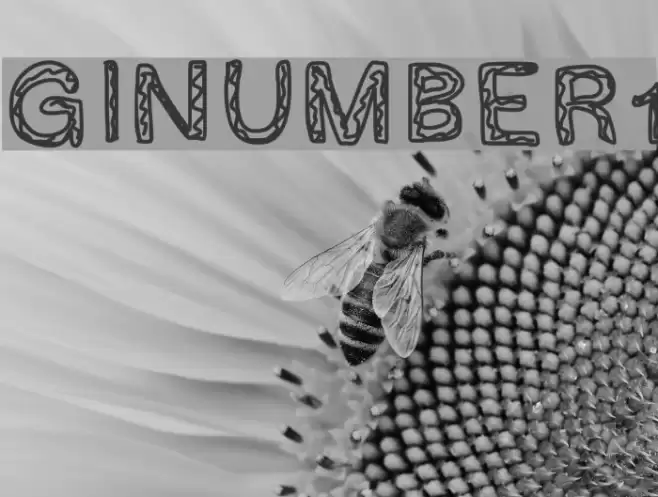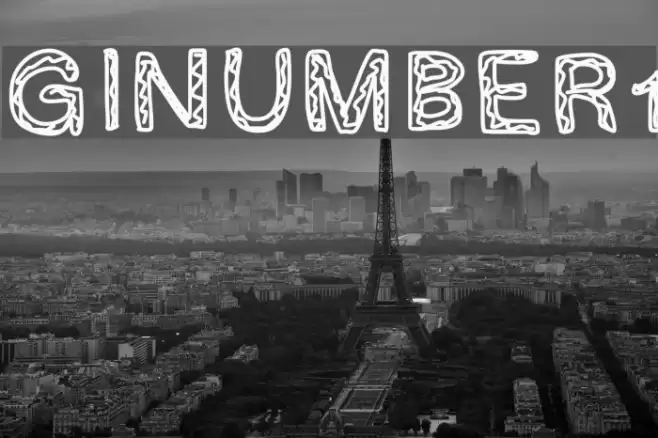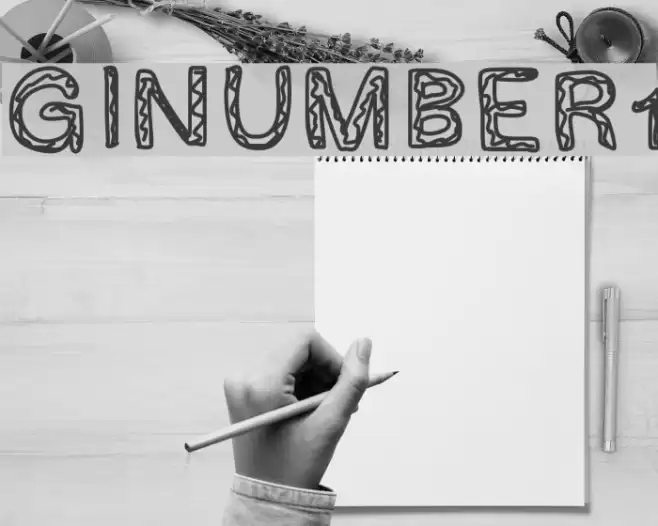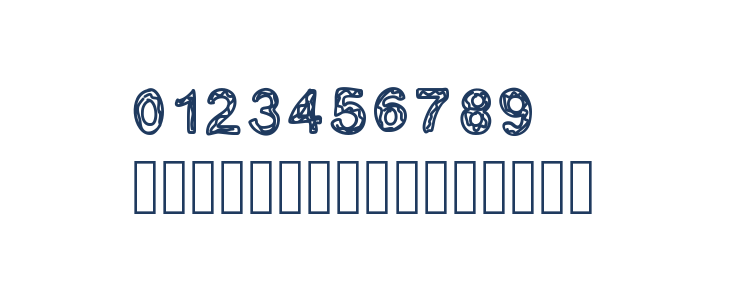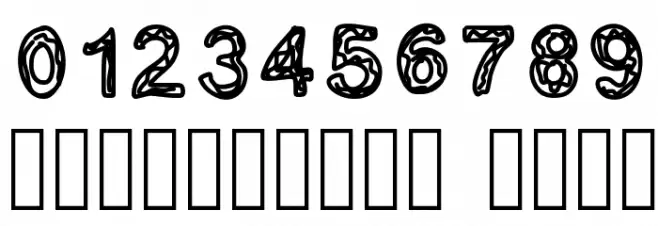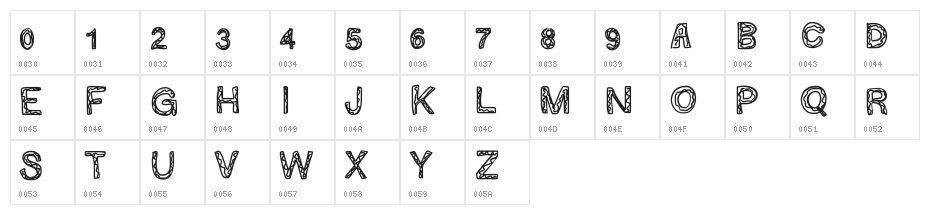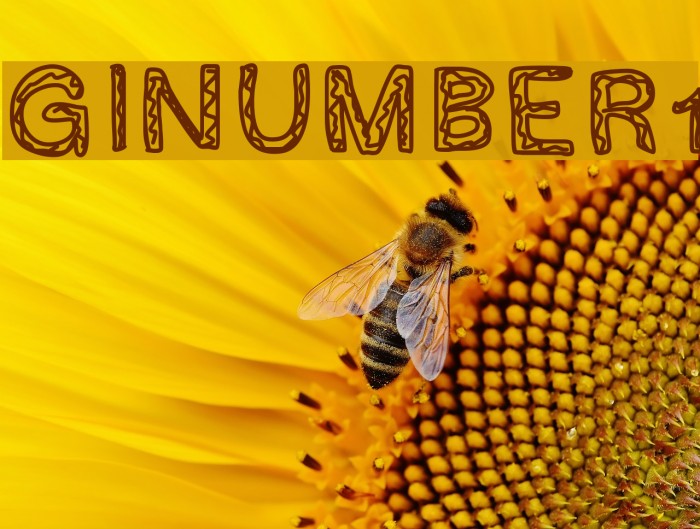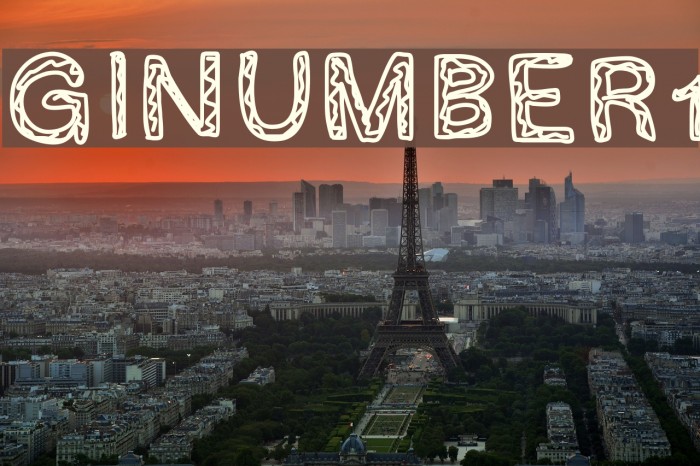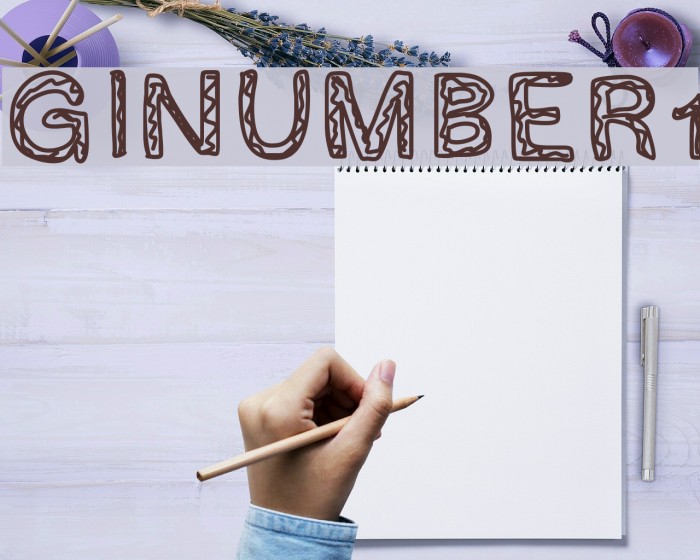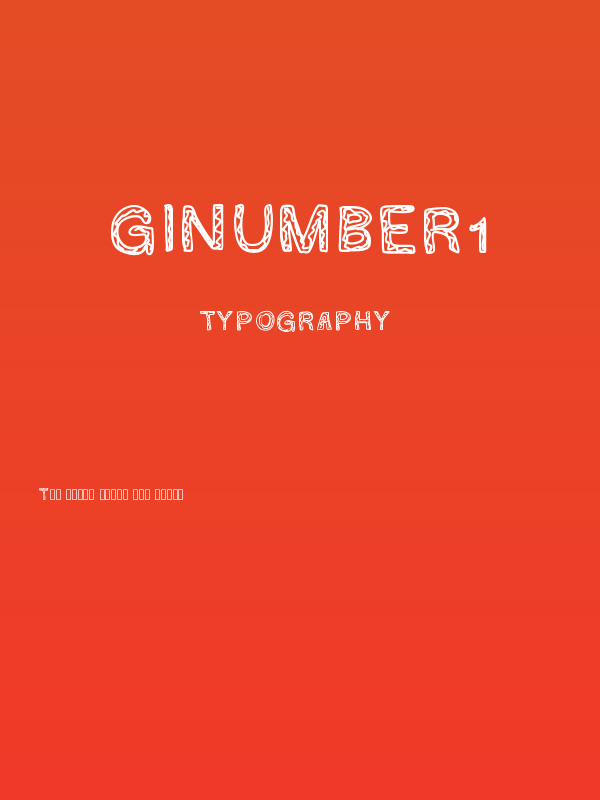
GINUMBER1 Font
GINUMBER1 Description
This font features a playful and artistic design, characterized by a hand-drawn, doodle-like appearance. Each letter is filled with intricate, swirling patterns that give it a unique, whimsical look. The uppercase letters are bold and eye-catching, making them suitable for creative and informal projects. The numbers follow the same artistic style, ensuring consistency across different uses. The font's decorative nature makes it ideal for projects that require a fun and engaging visual element, such as children's books, posters, or party invitations.
A playful, doodle-like font with intricate patterns, perfect for creative projects from Uncategorized fonts.
- Proposed Projects: Children's books, posters, party invitations, creative branding.
- Overall Style: Whimsical, Artistic
- Use Case: Headlines, Logos, Decorative text